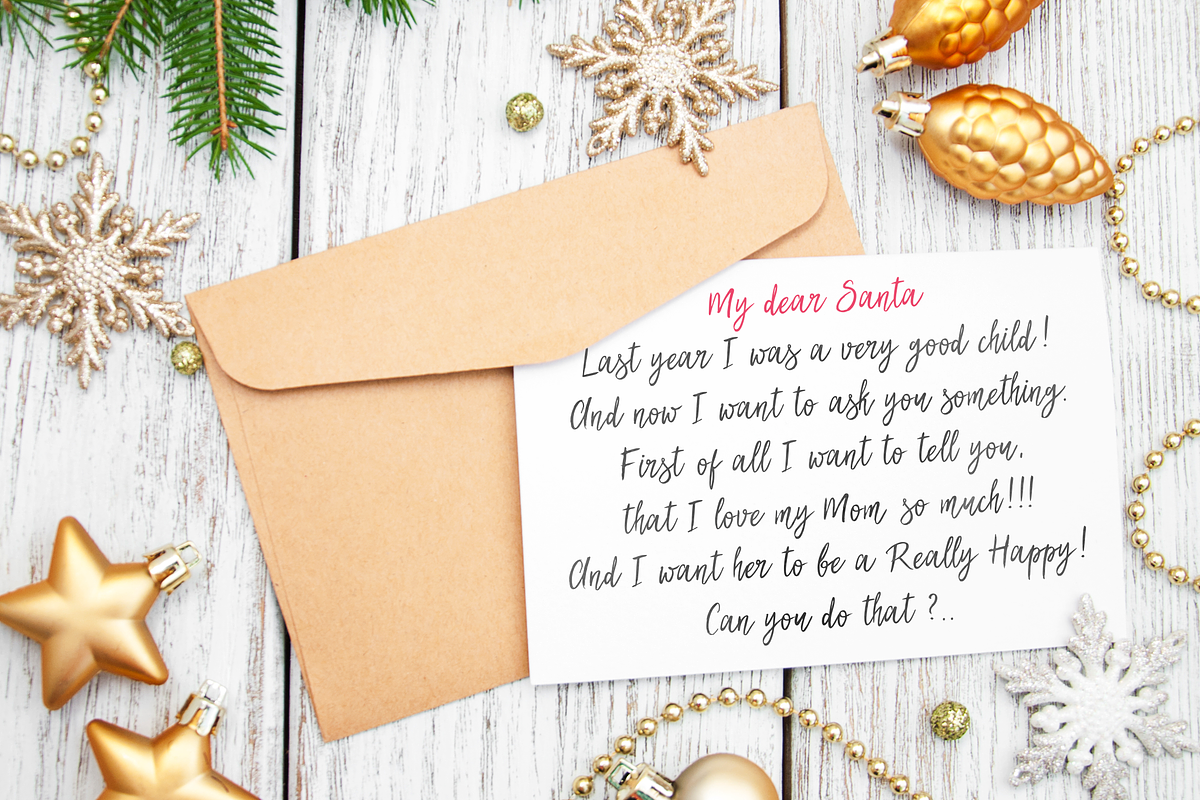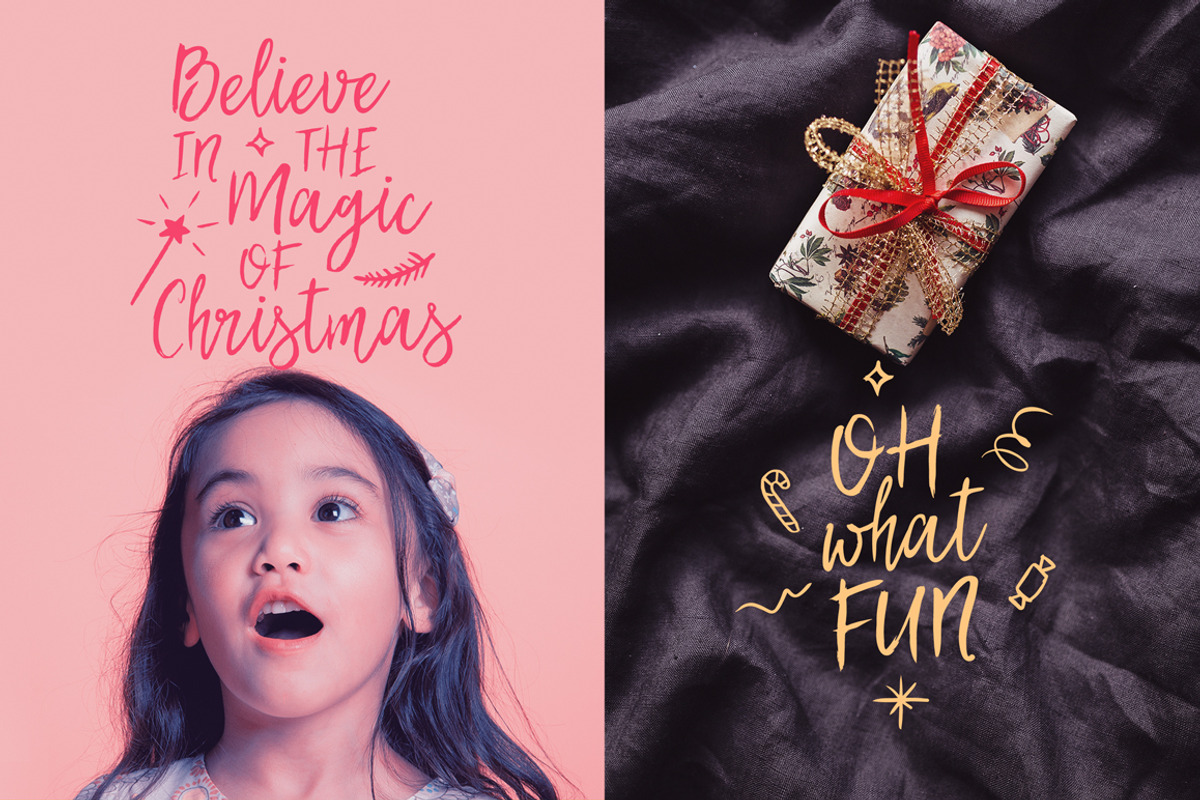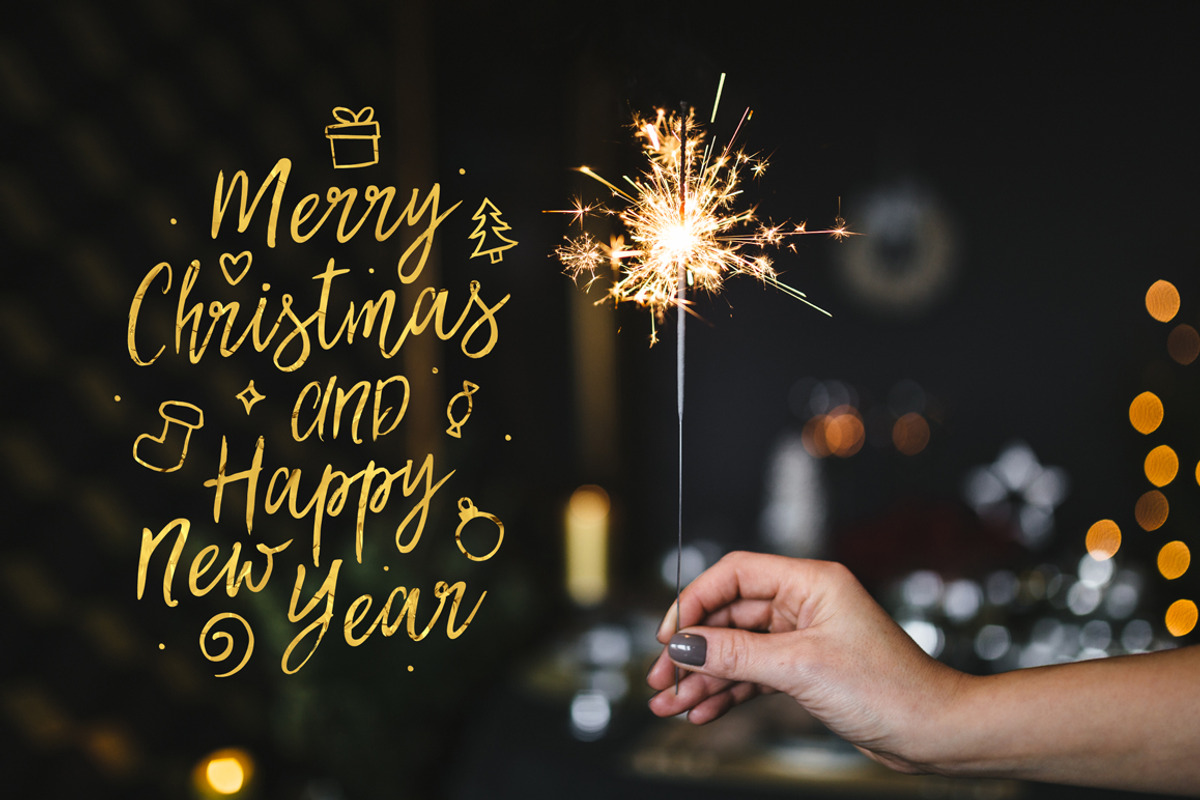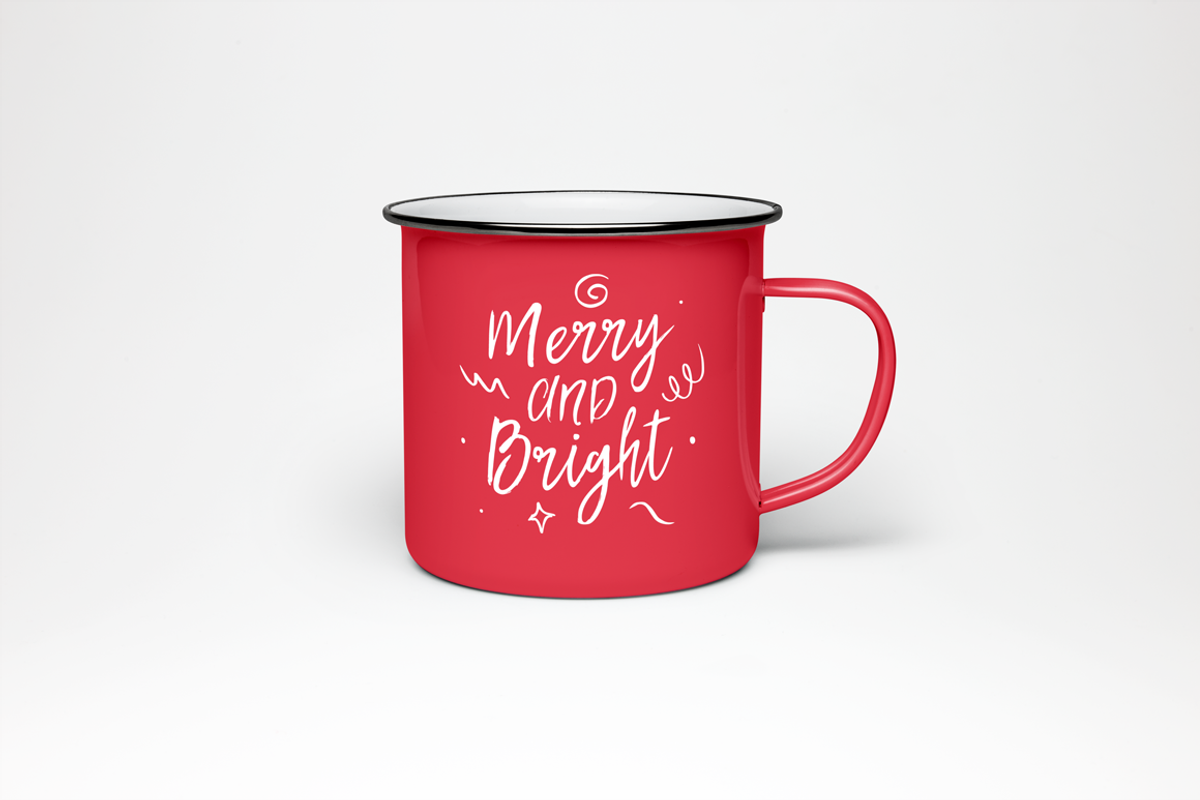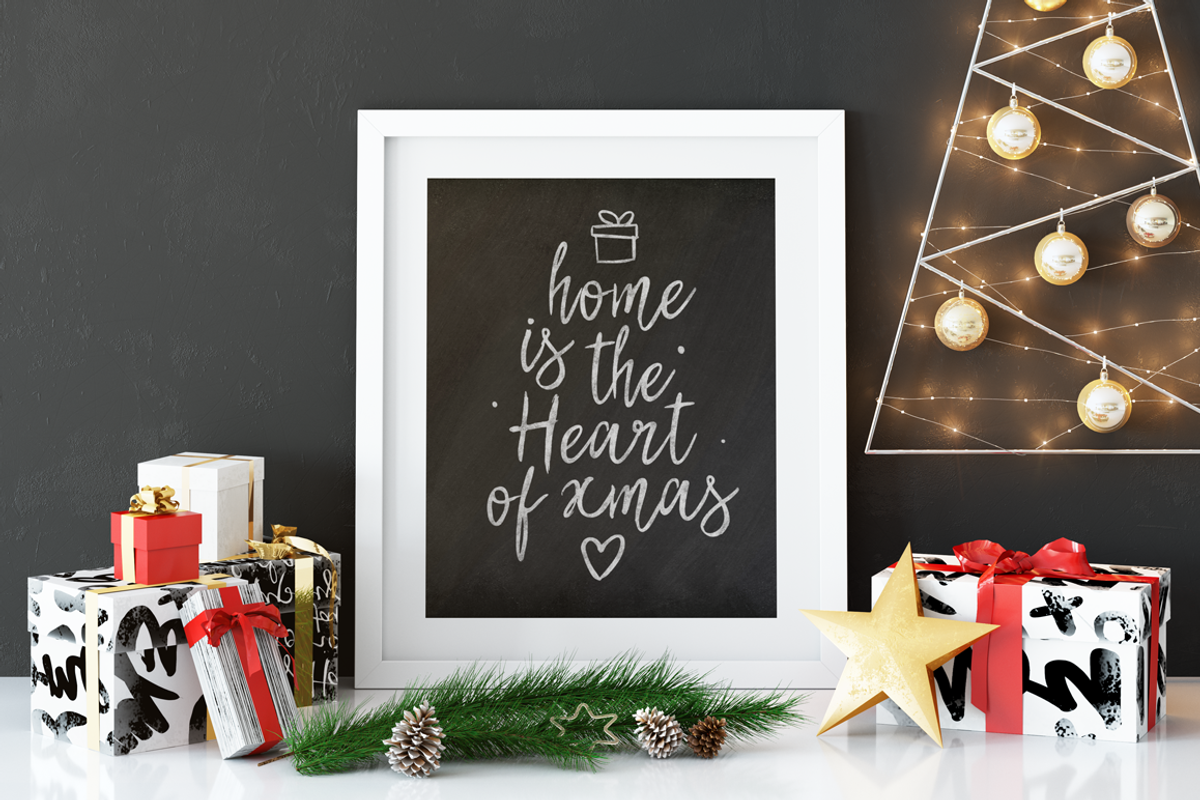
My Dear Santa Font + Extras
My Dear Santa Font + Extras by Ayya Studio is a font selected for branding, posters, packaging, typography.
- My Dear Santa typeface (Regular, Slanted, Upright and Extras) comes with upper and lowercase characters, set of numerals and punctuation as
Why My Dear Santa Font + Extras is worth a look
My Dear Santa Font + Extras by Ayya Studio fits naturally into Branding, posters, packaging, typography.